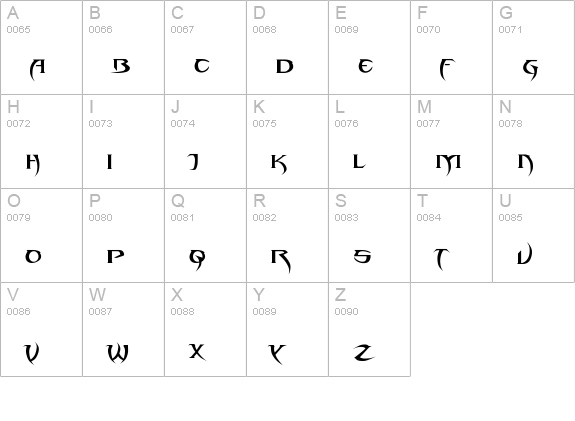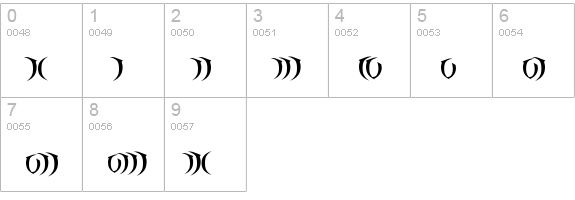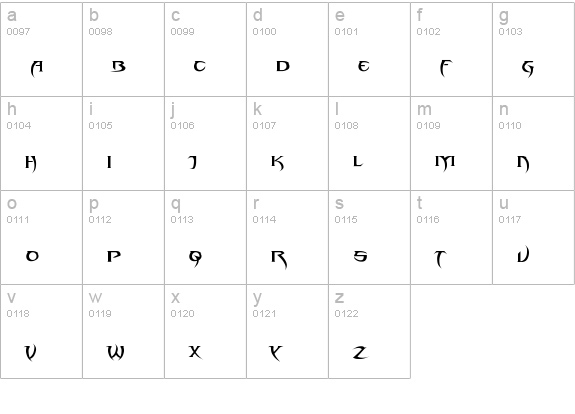
Blade 2 Font Details
Blade 2 font is an exceptional display font that exudes elegance and sophistication. With its sharp edges and sleek lines, this font captures attention and leaves a lasting impression. Designed with exquisite precision, Blade 2 font is perfect for logos, headlines, and any creative project that demands a touch of modernity. Not only does Blade 2 font offer a striking visual impact, but it also provides versatility in its usage. Whether it's for digital or print media, this font effortlessly adapts to any medium, showcasing its adaptability and versatility. What sets Blade 2 font apart is its unique ability to blend contemporary aesthetics with a timeless appeal. It effortlessly combines modern design elements with a classic feel, making it suitable for a wide range of projects, from branding to editorial design. One of the most remarkable aspects of Blade 2 font is that it is freely available to download at FontsMarket.com. This means that designers and creatives can access this exceptional font without any cost, allowing them to explore its potential and unleash their creativity without constraints. Blade 2 font's availability as a free download ensures that everyone can enjoy its beauty and use it to enhance their projects. It democratizes access to high-quality design resources, empowering designers of all skill levels to create stunning visuals without breaking the bank. In conclusion, Blade 2 font is a captivating display font that effortlessly combines modern design elements with a timeless appeal. Its availability as a free download at FontsMarket.com makes it an invaluable resource for designers and creatives seeking to elevate their projects. Embrace the sophistication and versatility of Blade 2 font and unleash your creative potential today.